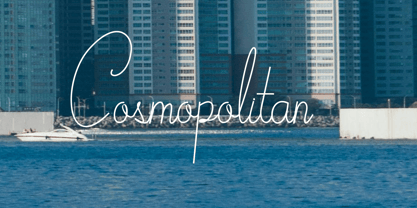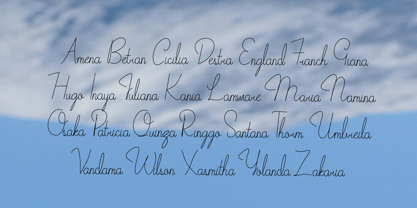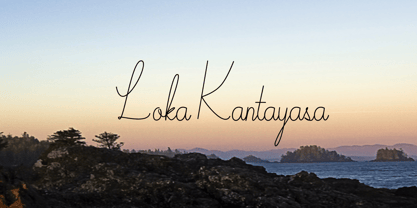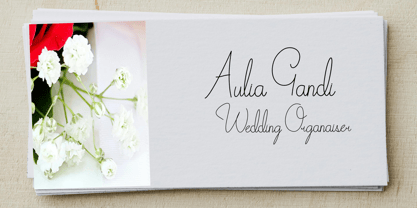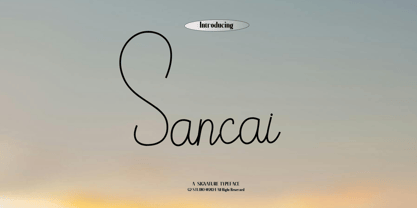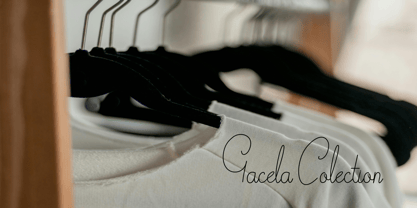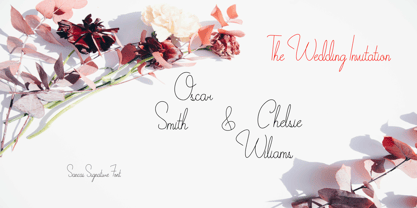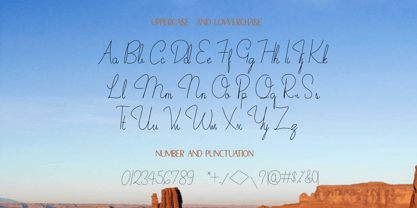
Sancai
Die Schriftfamilie Sancai wurde von Eka Setiono entworfen und von G2 Studio veröffentlicht. Sancai enthält 1 Stile. Mehr über diese Familie
Sancai is a stylish signature font that exudes elegance and personal flair. With its smooth, flowing strokes and natural, handwritten feel, Sancai brings a touch of authenticity to any design. Perfect for logos, invitations, branding, and more, this font combines sophistication with a personal touch, making it ideal for projects that need to convey warmth and creativity. Its fluid curves and charming ligatures ensure that your design feels unique and memorable.
G2 Studio is a creative foundry located in Purbalingga, Central Java, Indonesia, founded by Eka Setiono. The studio specializes in designing fonts and typography, creating unique and functional typefaces for both digital and print applications. G2 Studio aims to provide innovative typographic solutions, blending art with technology. Under the leadership of Eka Setiono, G2 Studio continues to grow as a hub for font design, committed to quality and creativity, while also showcasing the uniqueness of Indonesian typography to the global market.4o mini